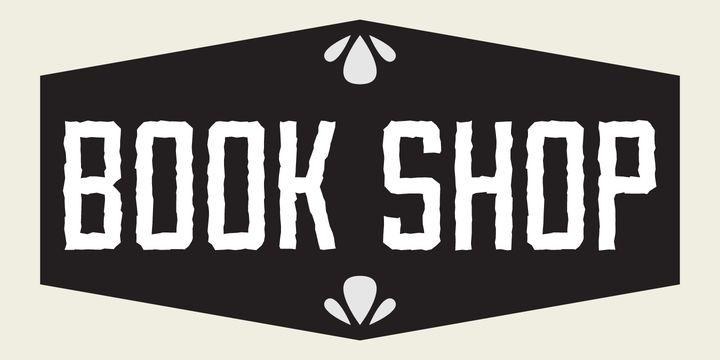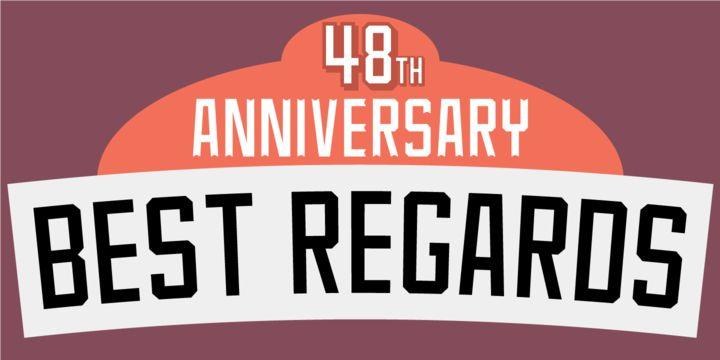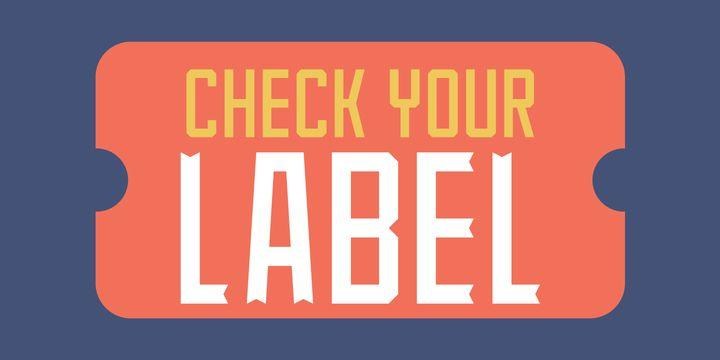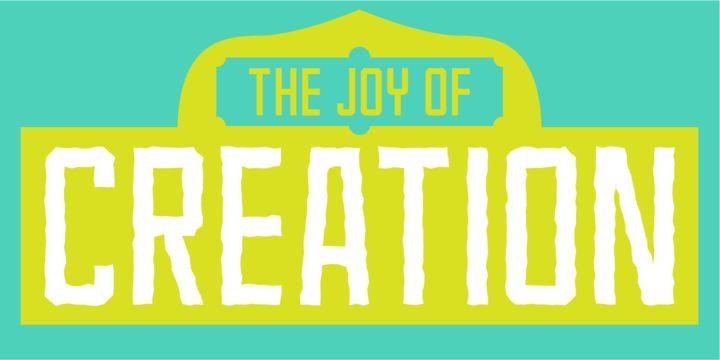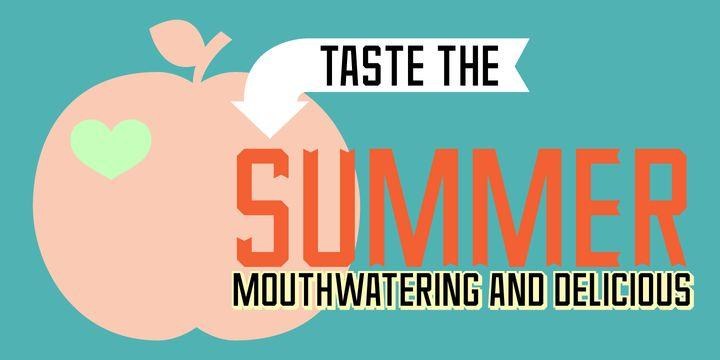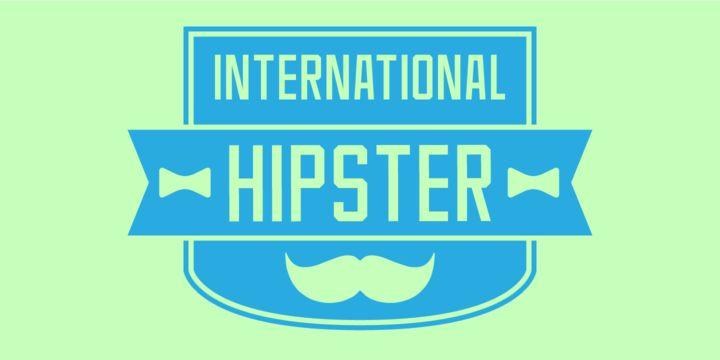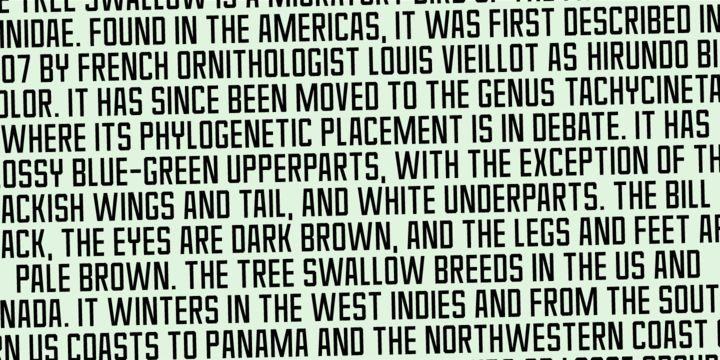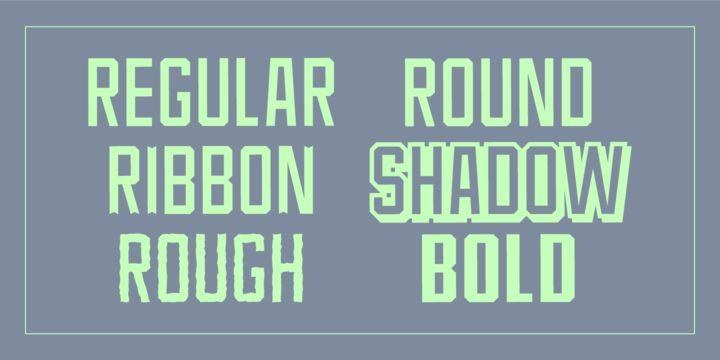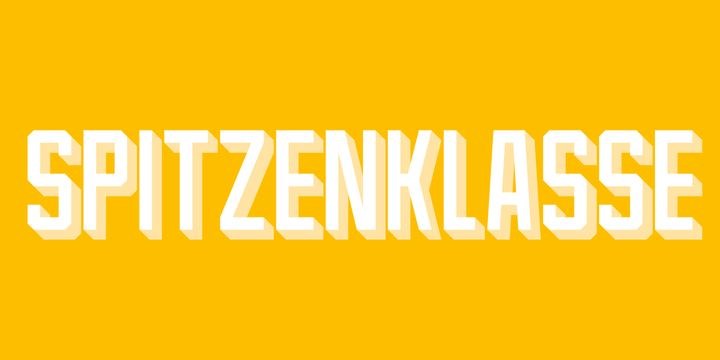
Spitzenklasse Font Family
Spitzenklasse is for that project of yours, where you need something really stylized, legible and beautiful at the same time!
Spitzenklasse Font Family is a Font Family font that brings a professional and versatile look to your projects. Spitzenklasse is for that project of yours, where you need something really stylized, legible and beautiful at the same time!.